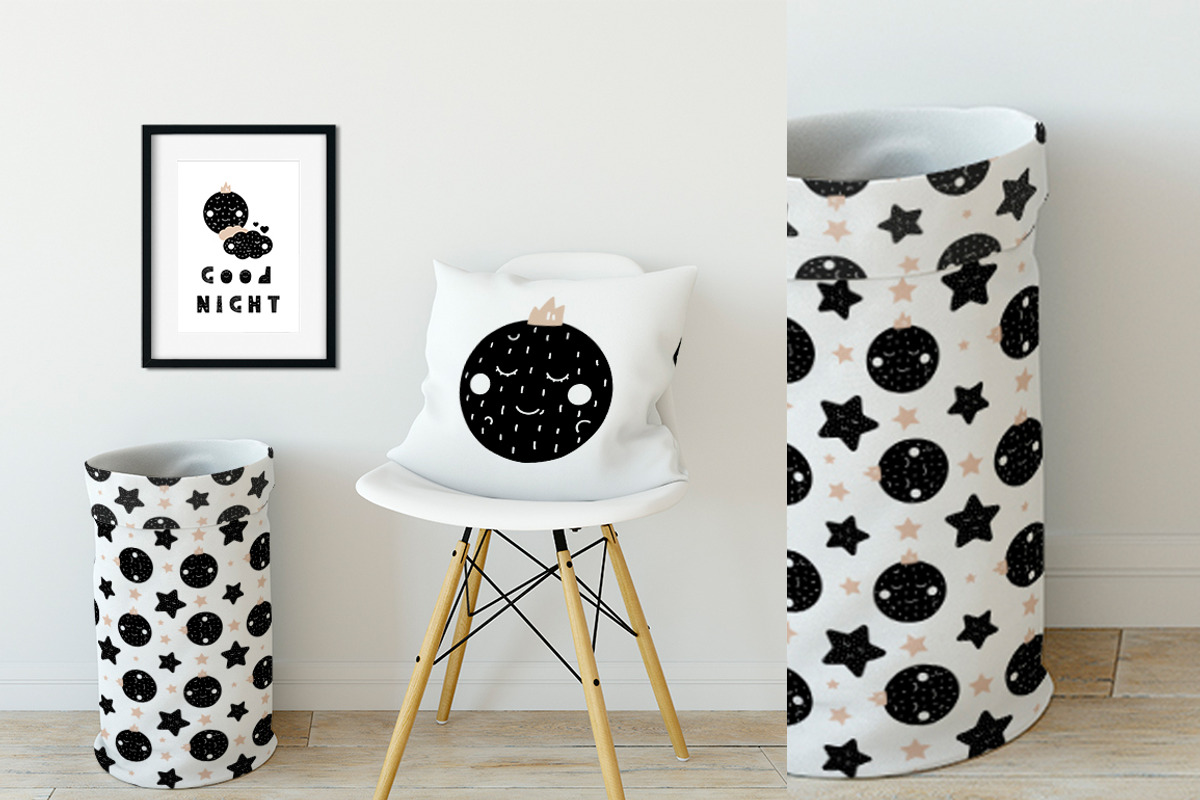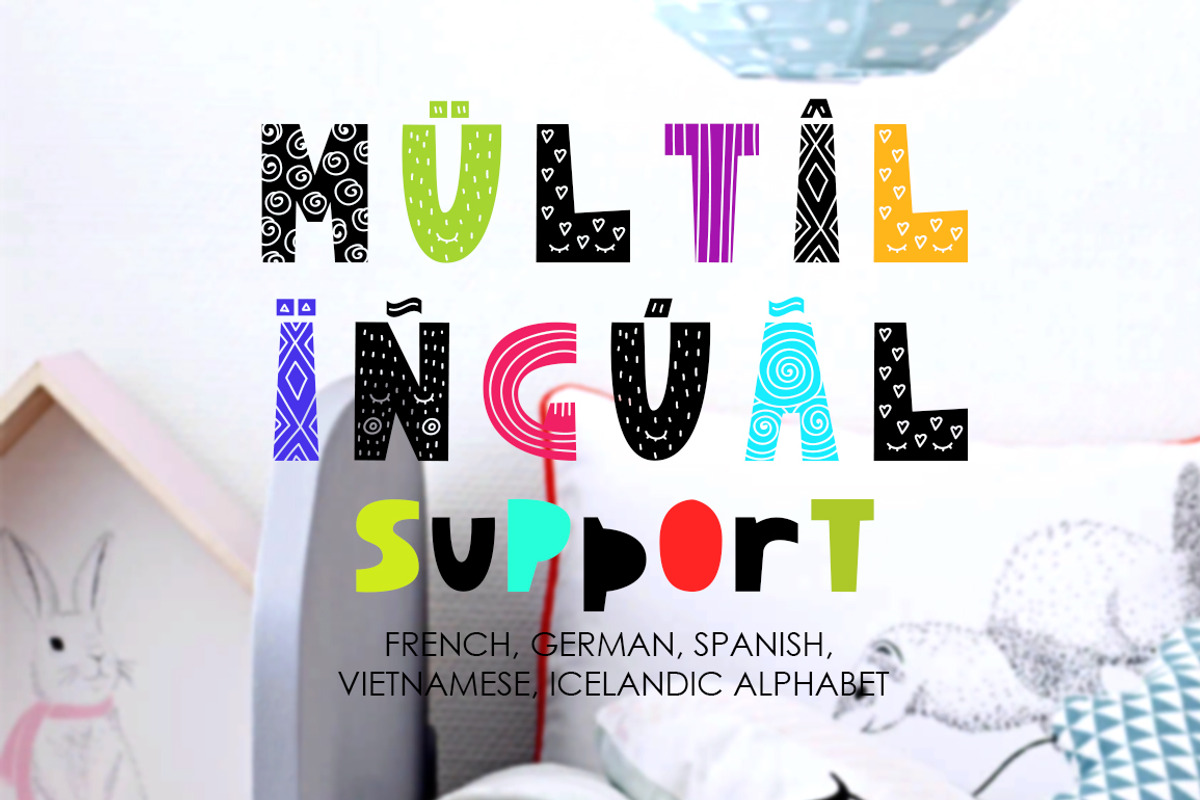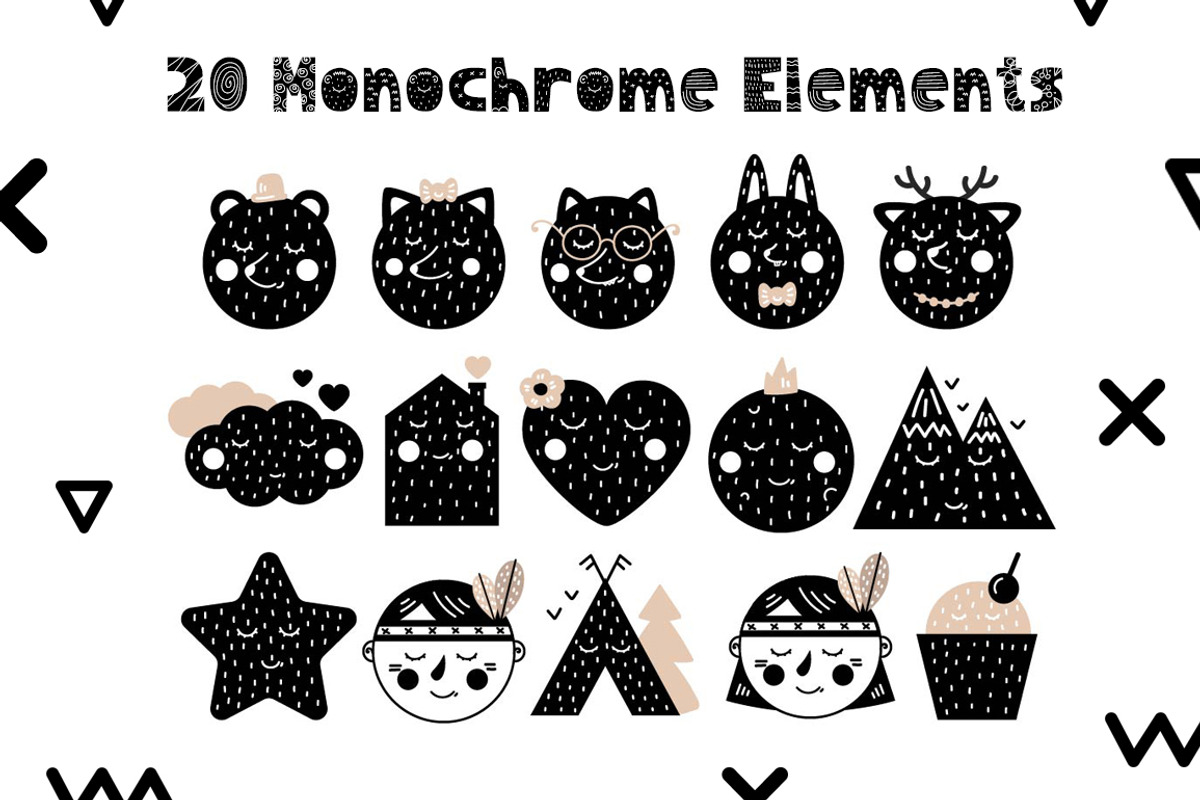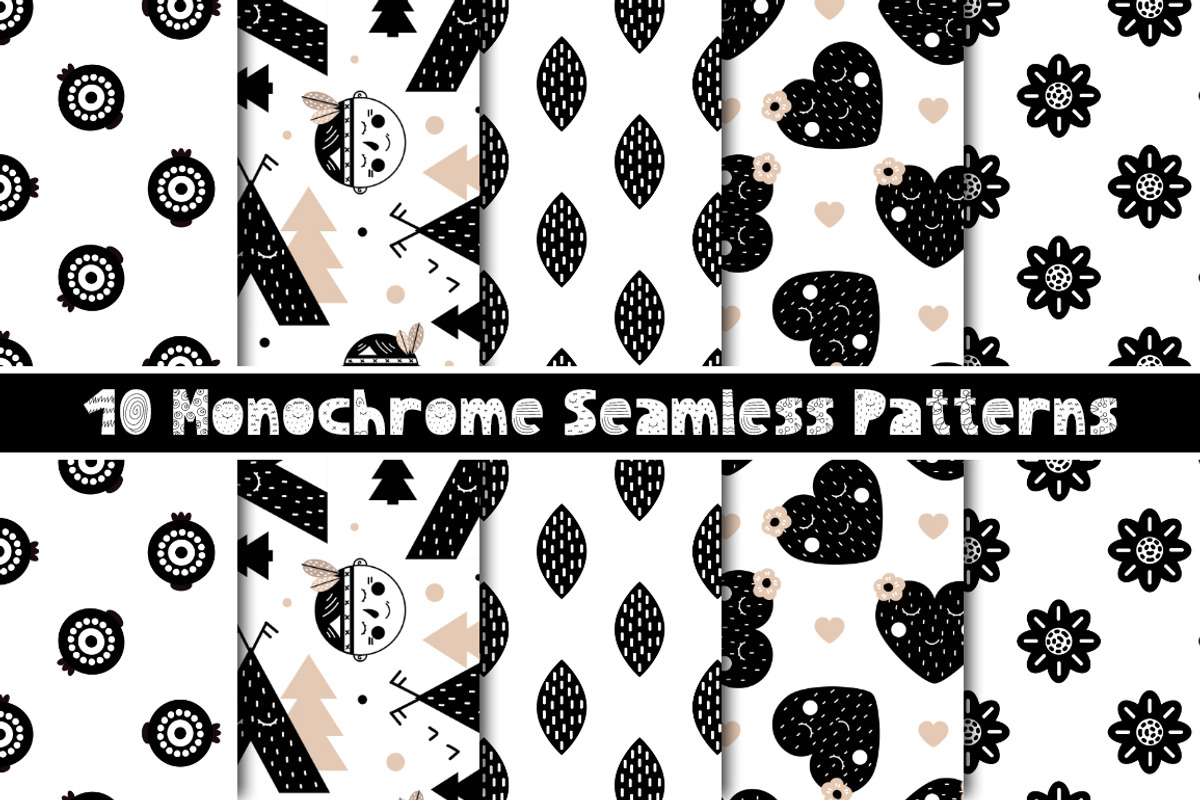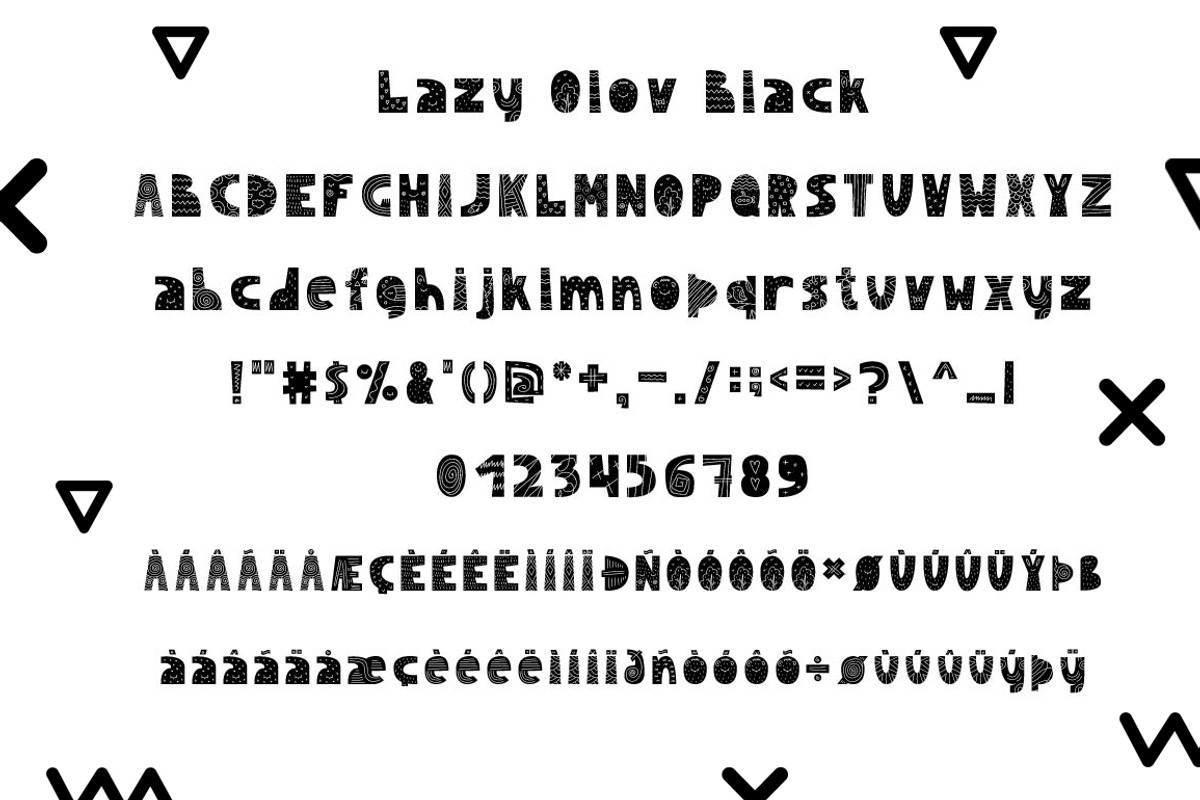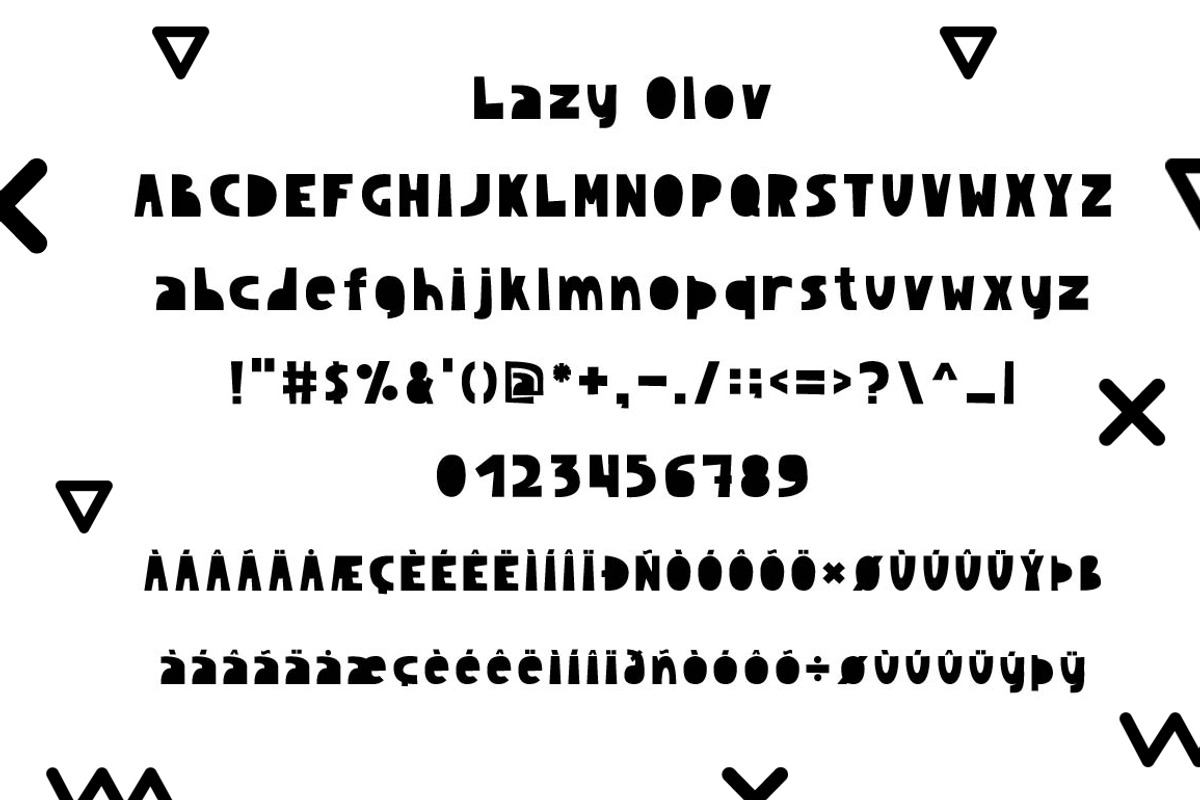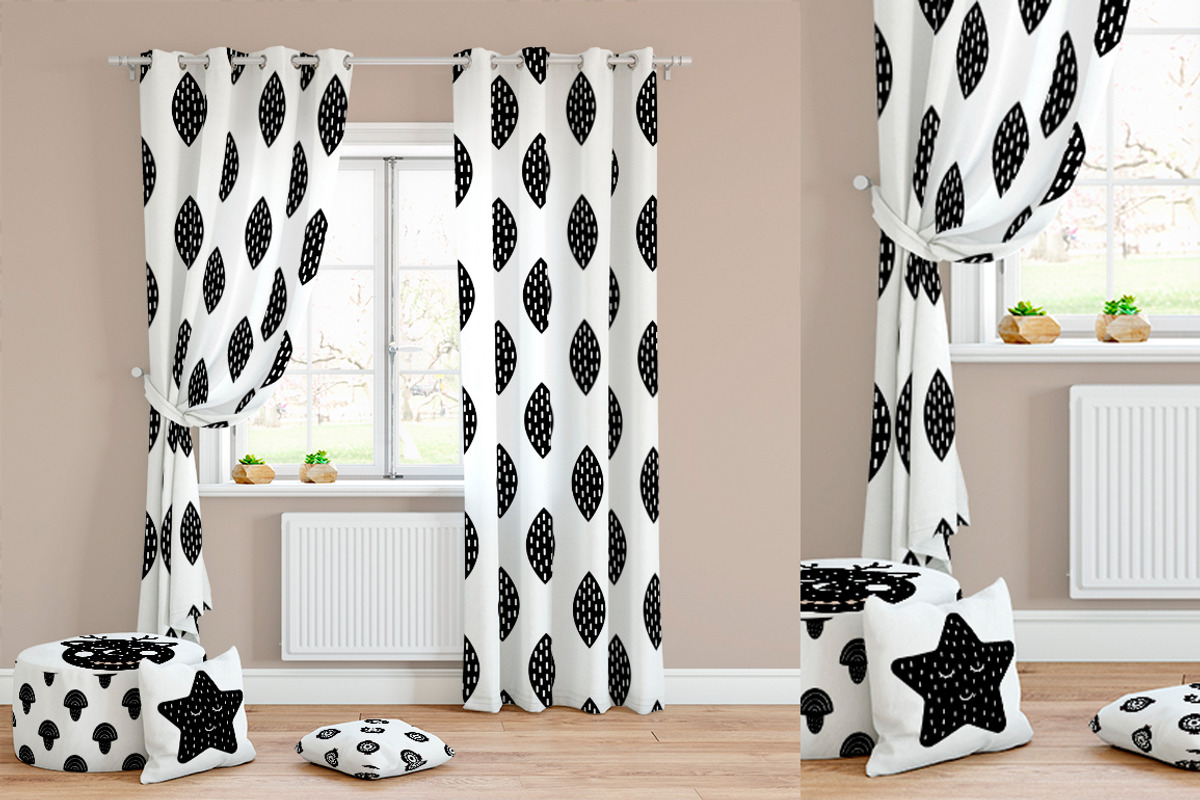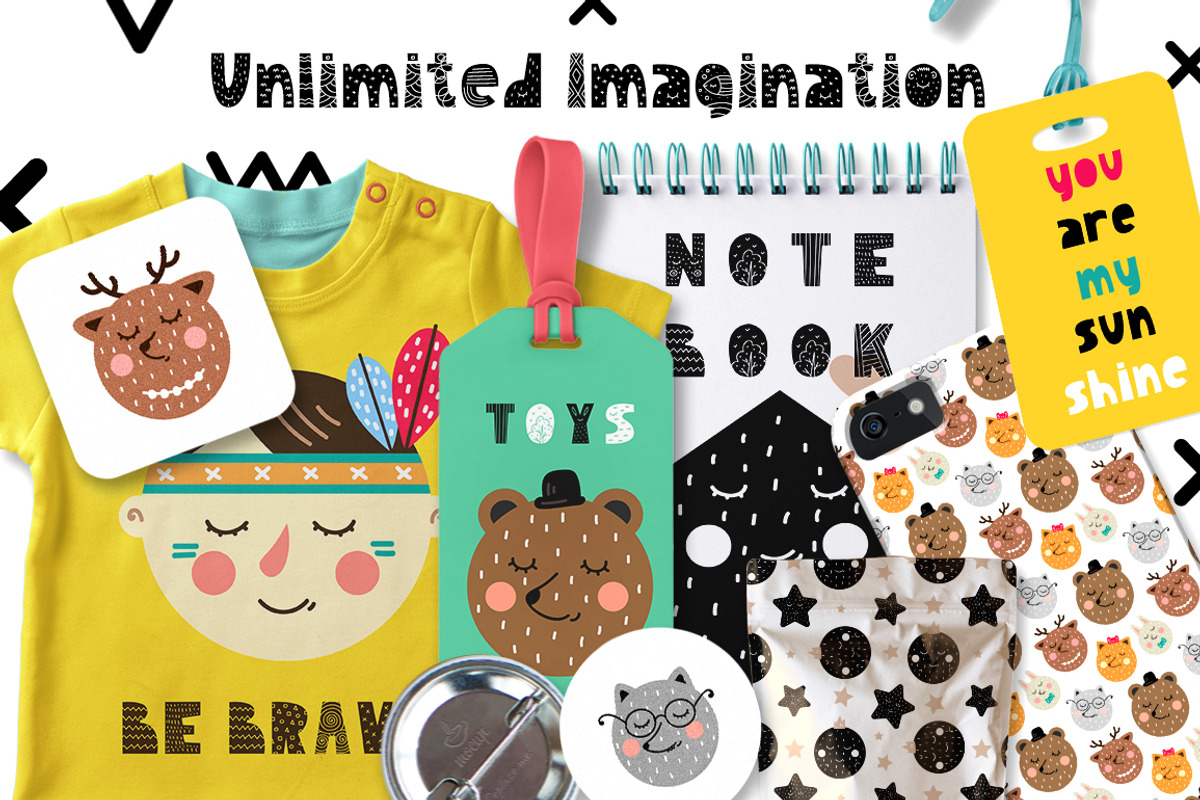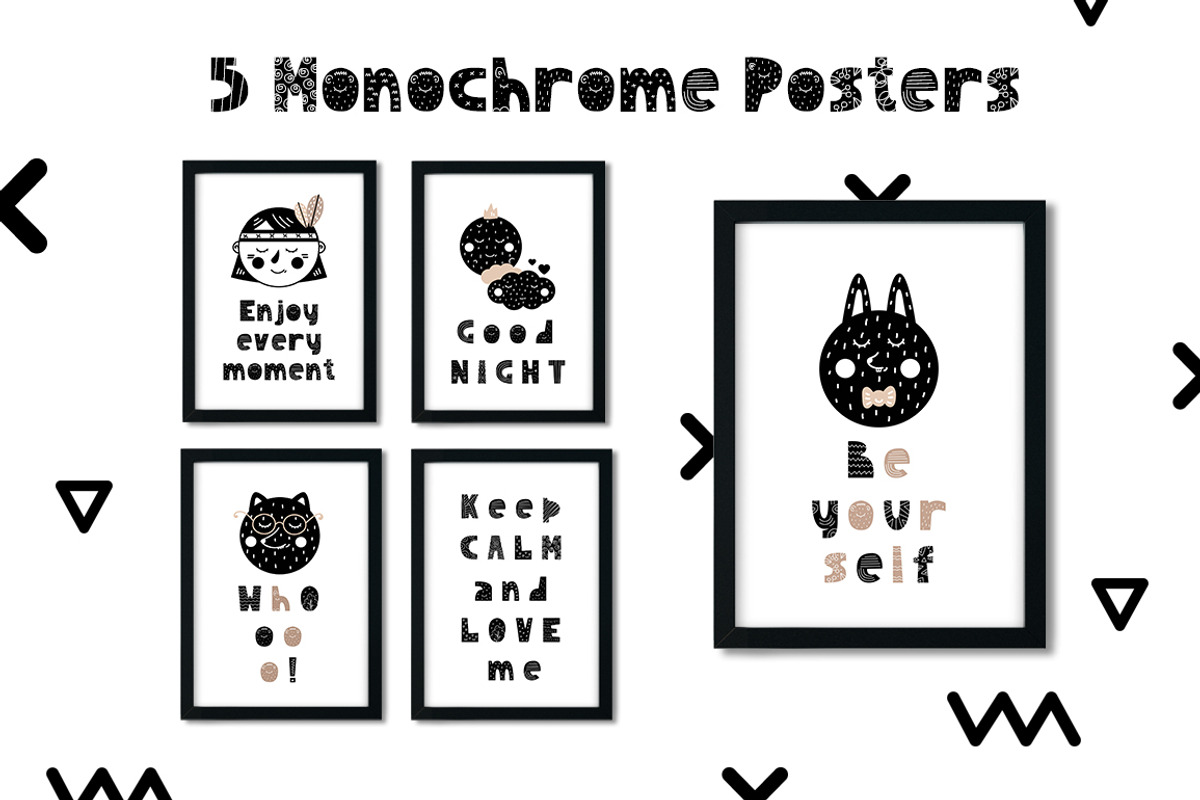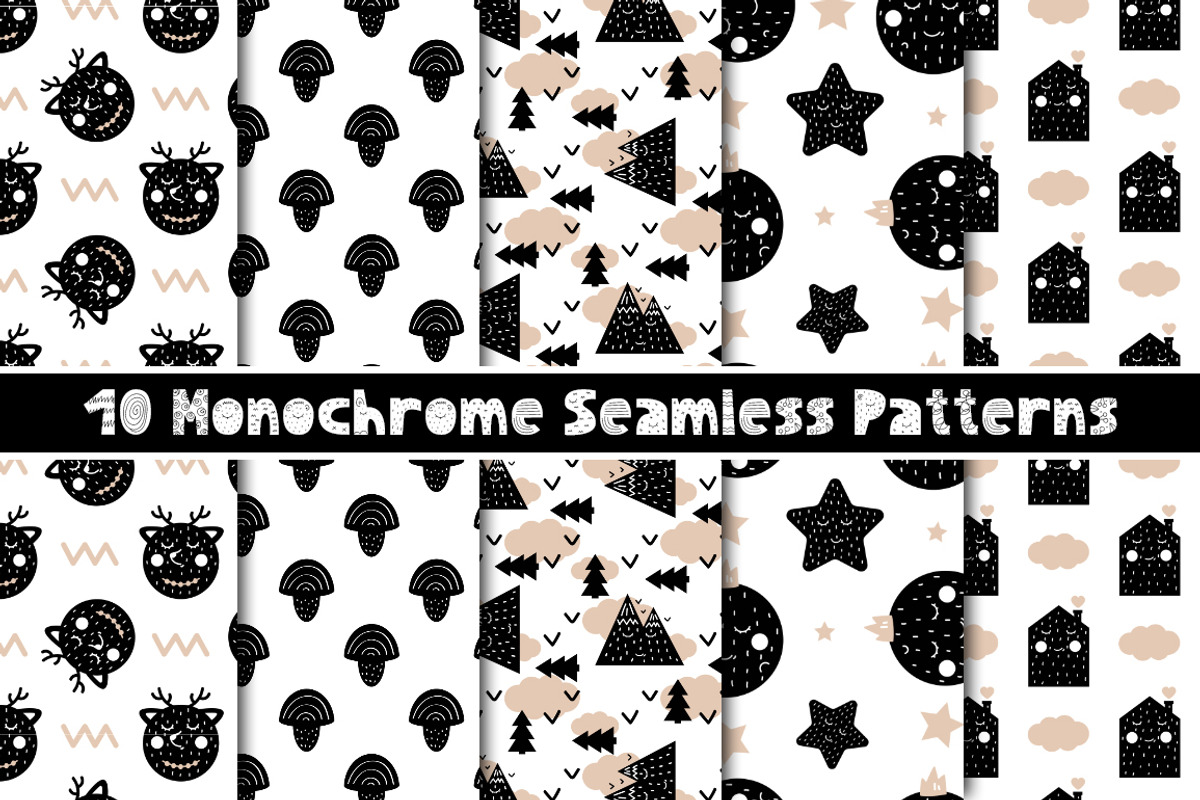
Lazy Olov - Scandinavian Color Font
Hi! I represent to your attention a lovely cute scandinavian color font Lazy Olov! In this set you will find a pretty font and decorative elements in Scandinavian style! The package also includes a simple font in Scandinavian style! Using Lazy Olov font and elements of decor, you can create posters for the interior and not only. Also invitations, gift packaging, greeting cards, Wallpaper, textiles, logos, magnets, notebooks, prints, posters and more!